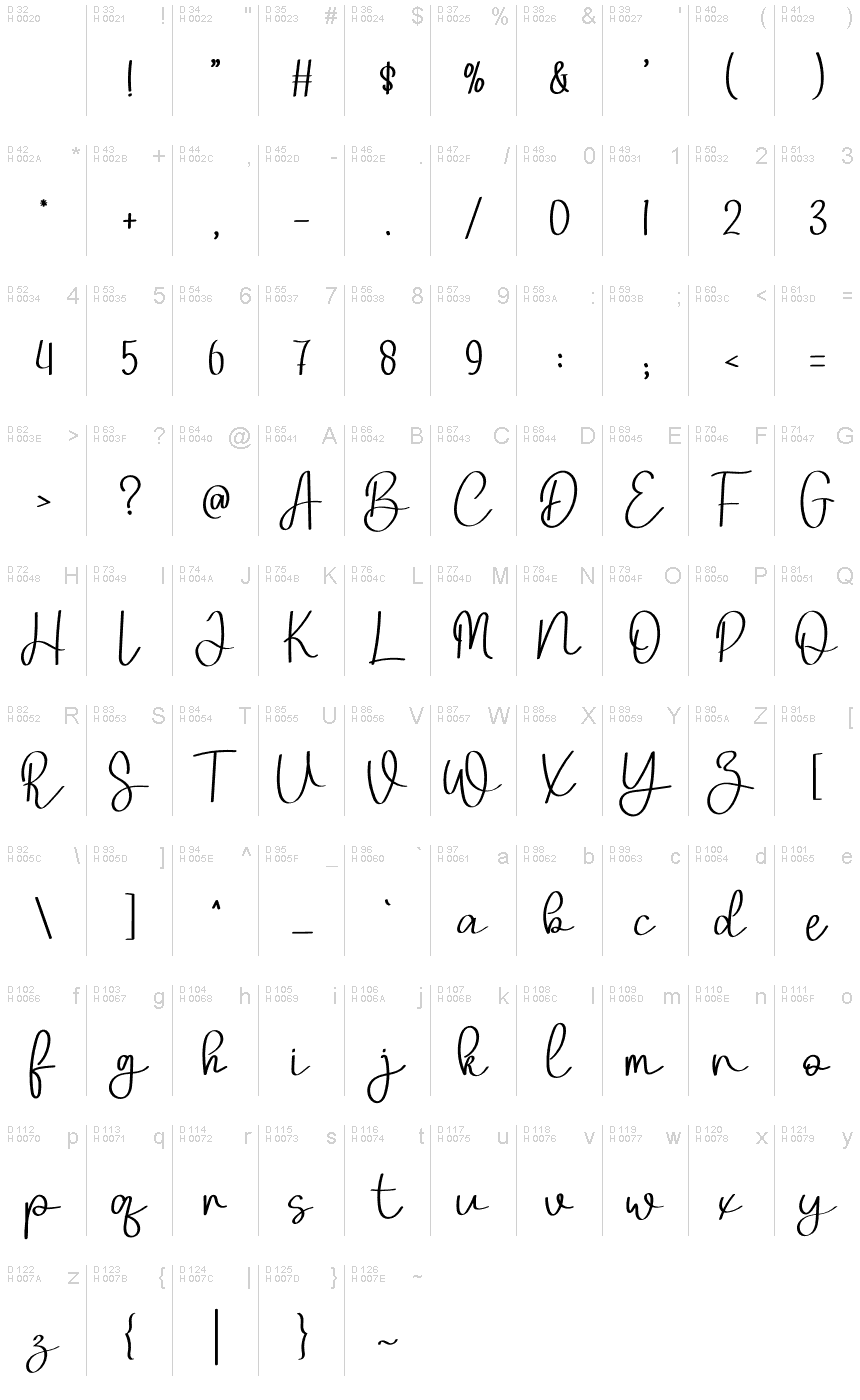
Candy Queen
Say hello to Candy Queen - the handwritten font designed by Inermedia Studio that will sweeten up your projects. With its delicate and light weight, this font is perfect for creating a feminine look and feel. Whether you're working on wedding invitations, social media graphics, or even branding for a bakery or candy shop, Candy Queen will bring a touch of whimsy to your designs. So go ahead and indulge in this deliciously playful font - your audience will be sure to eat it up!